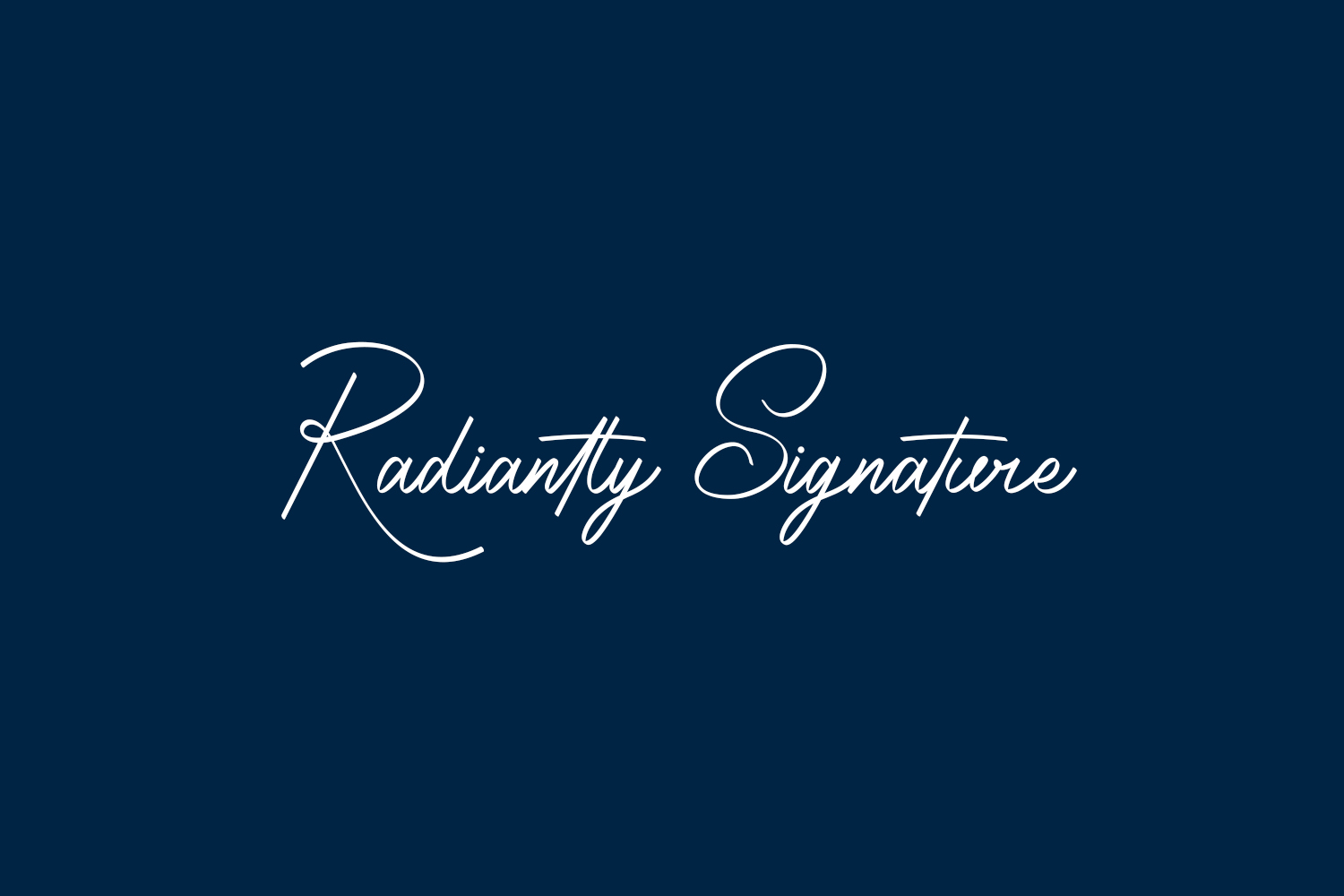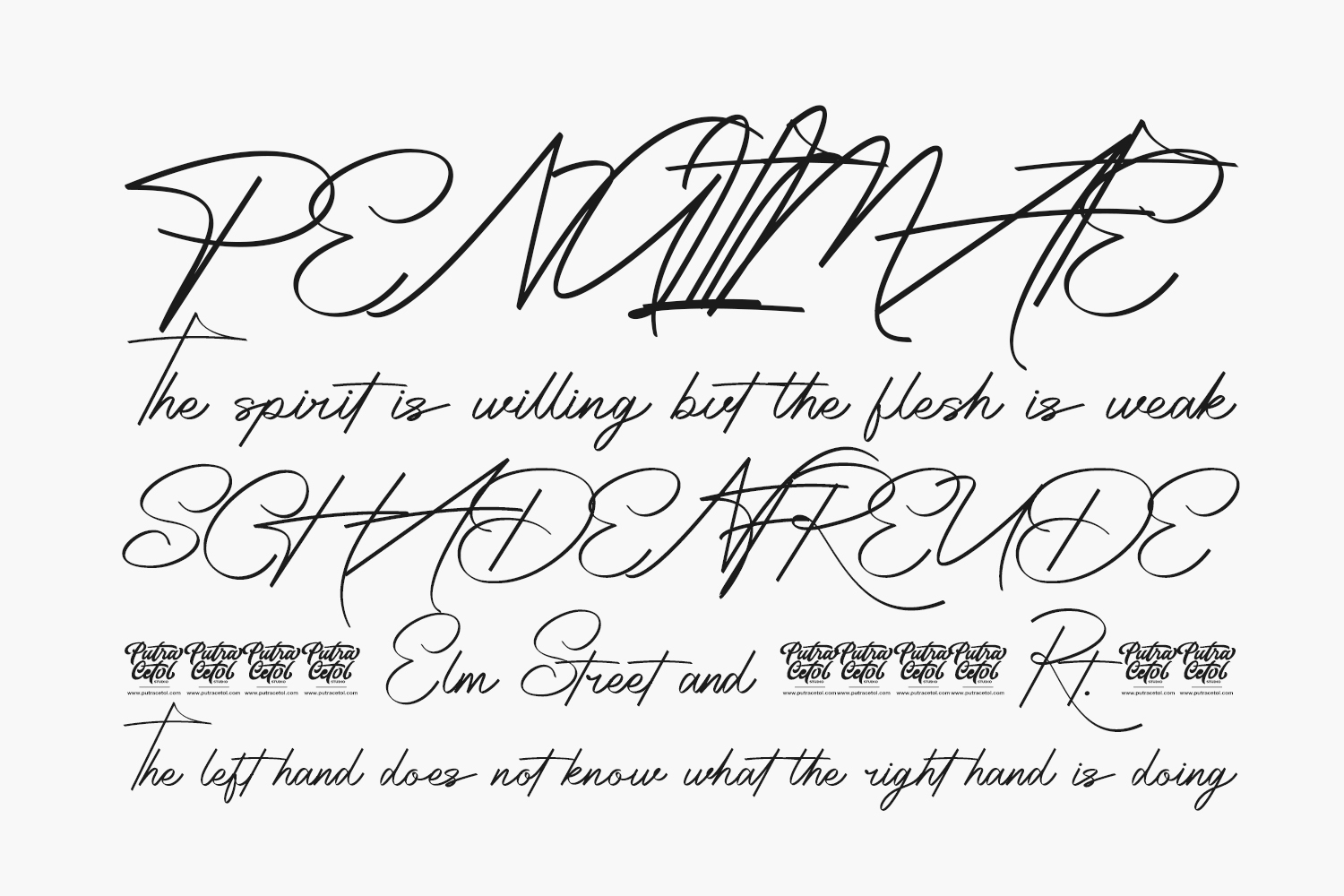
Radiantly Signature Free Font is a cursive and delicate script font. It has a classy, elegant, and modern look that can be used for logos, branding, invitations, stationery, wedding designs, social media posts, and much more. Radiantly Signature Free Font was designed by PutraCetol Studio is a demo and free for personal use only. Please purchase the full version for commercial use.